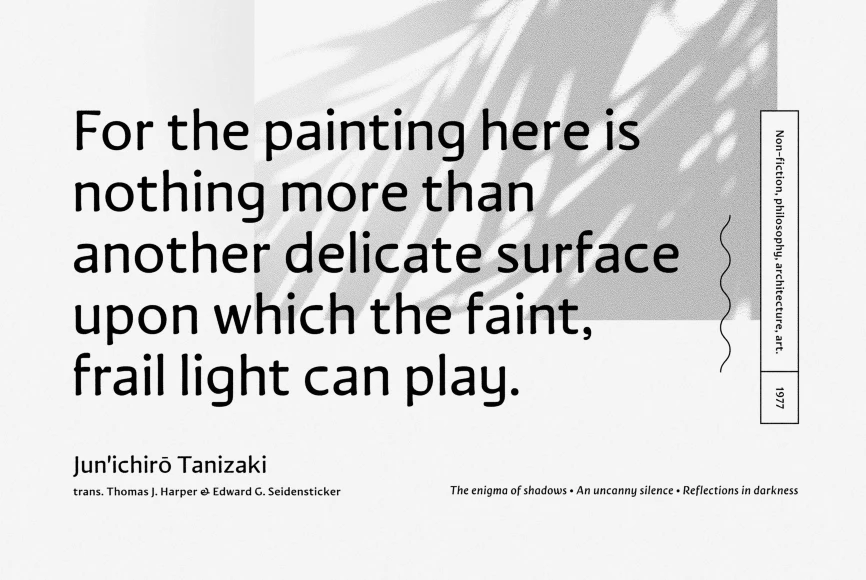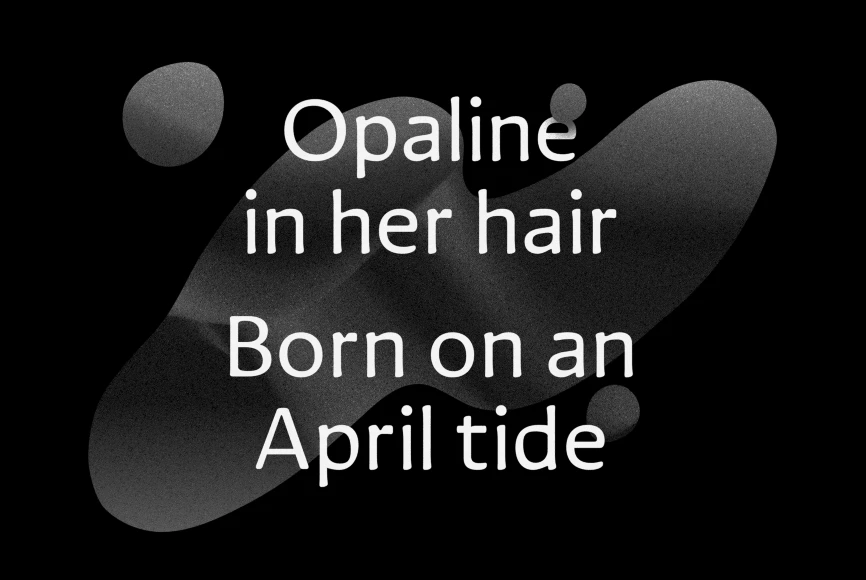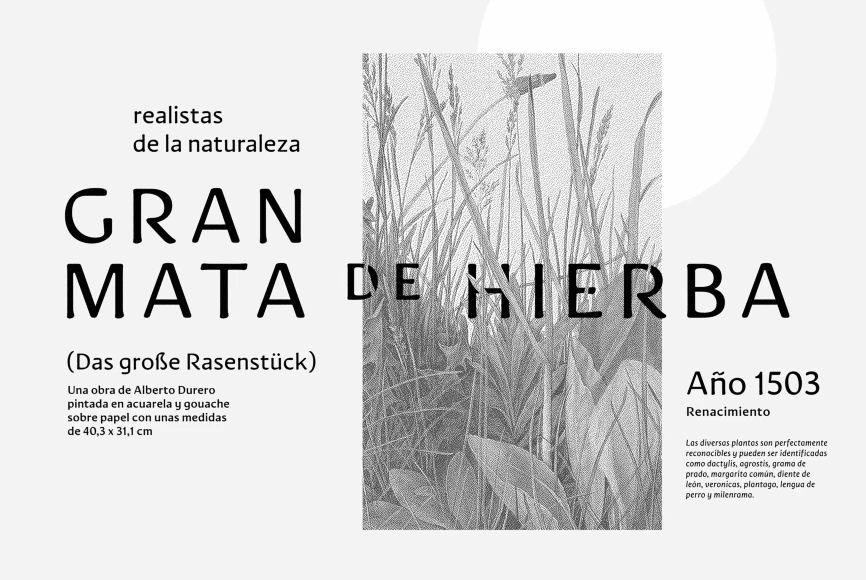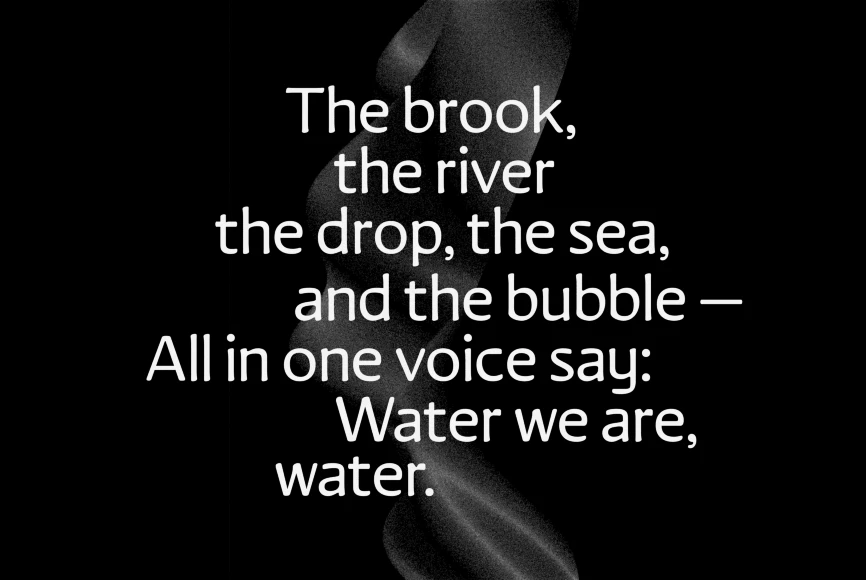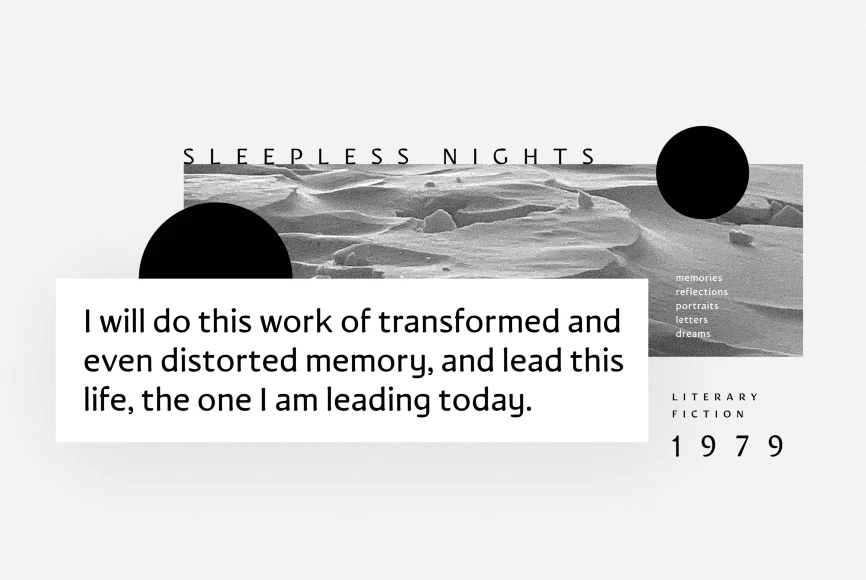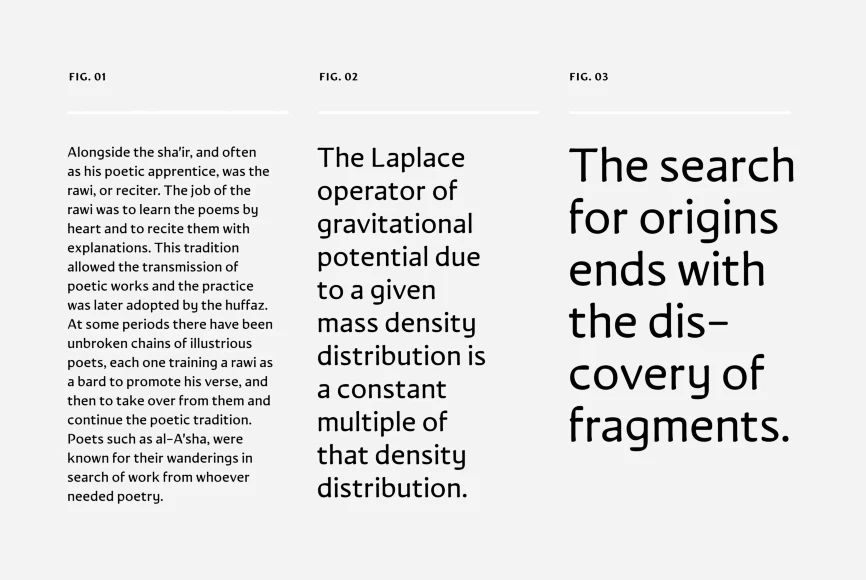
Novaletra Sans
Smooth brushstrokes inform the construction of Novaletra Sans CF. As Novaletra Serif’s sister typeface, Novaletra Sans shares its easy readability and excellent performance in a humanist design. Subtle flares and low stroke contrast provide warmth uncommon in sans-serif font families. Perfect for longform texts, books, articles, newspapers, and more. Includes Latin and Cyrillic glyphs in upright and italic sets.